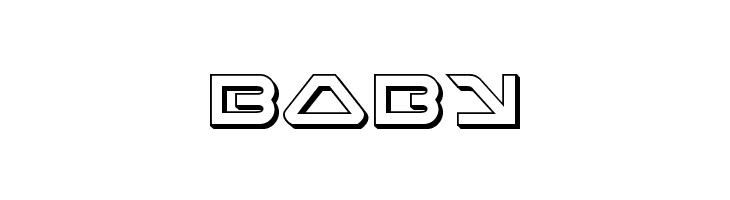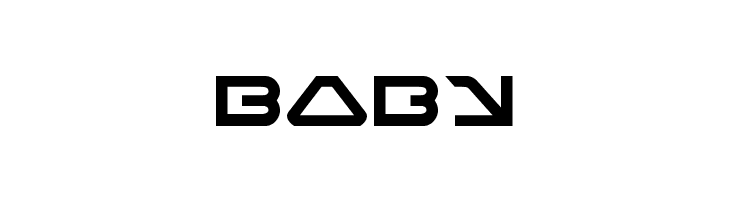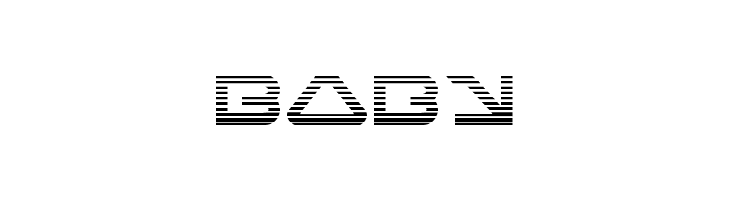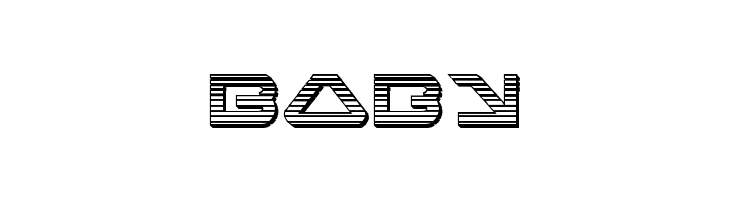
• 4114 Blaster
A futuristic, geometric font with bold, angular letterforms and a sci-fi aesthetic.
• 4114 Blaster 3D
A futuristic, geometric font with bold, angular lines and a 3D effect.
• 4114 Blaster Academy
A bold, futuristic font with geometric and angular design elements.
• 4114 Blaster Chrome
A futuristic, industrial font with bold geometric shapes and line patterns.
• 4114 Blaster Gradient
A futuristic font with gradient-like horizontal lines and geometric shapes.
• 4114 Blaster Halftone
A bold, futuristic font with a halftone effect and geometric design.
• 4114 Blaster Laser
A futuristic, geometric font with a bold, stencil-like design.